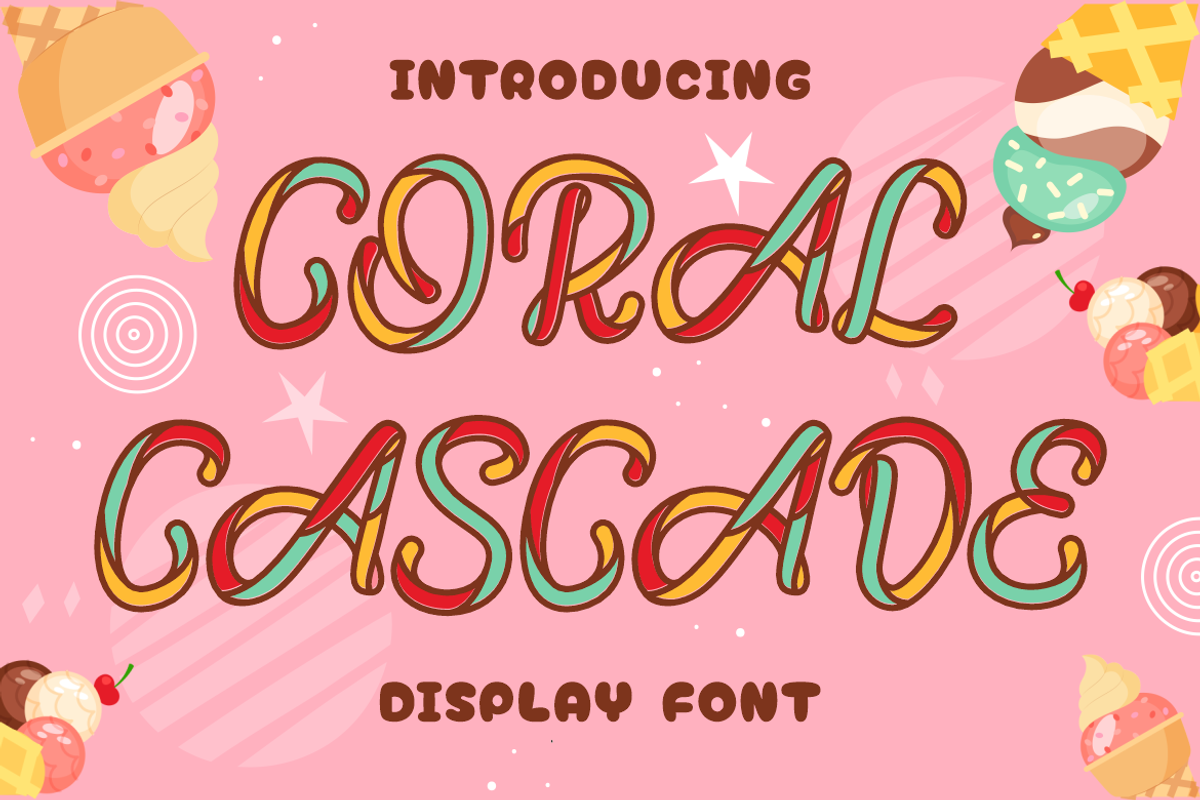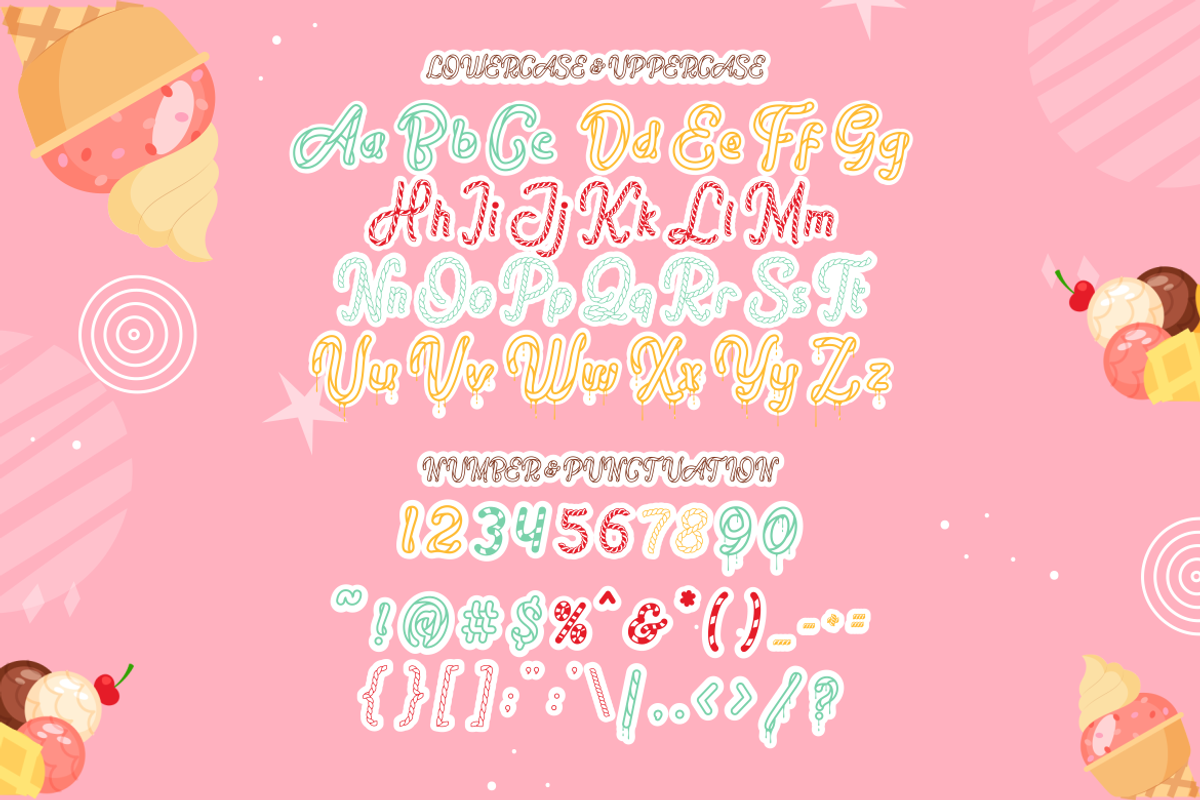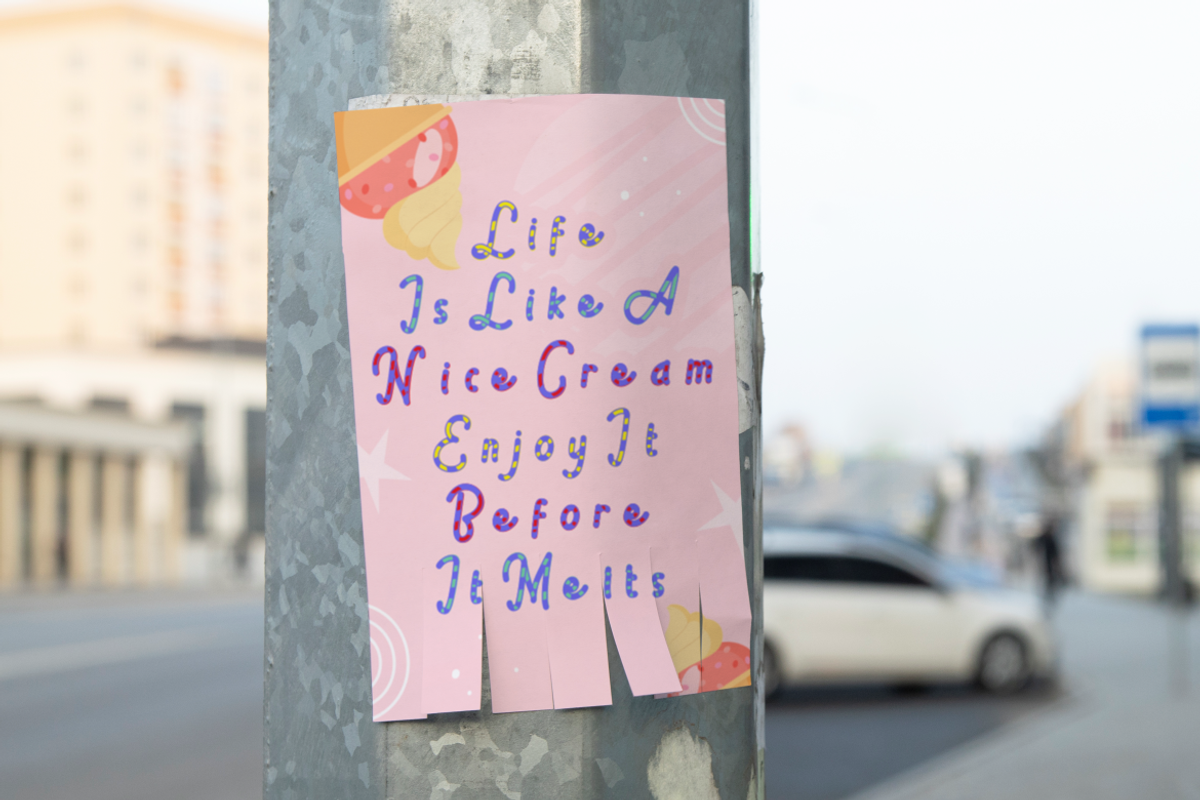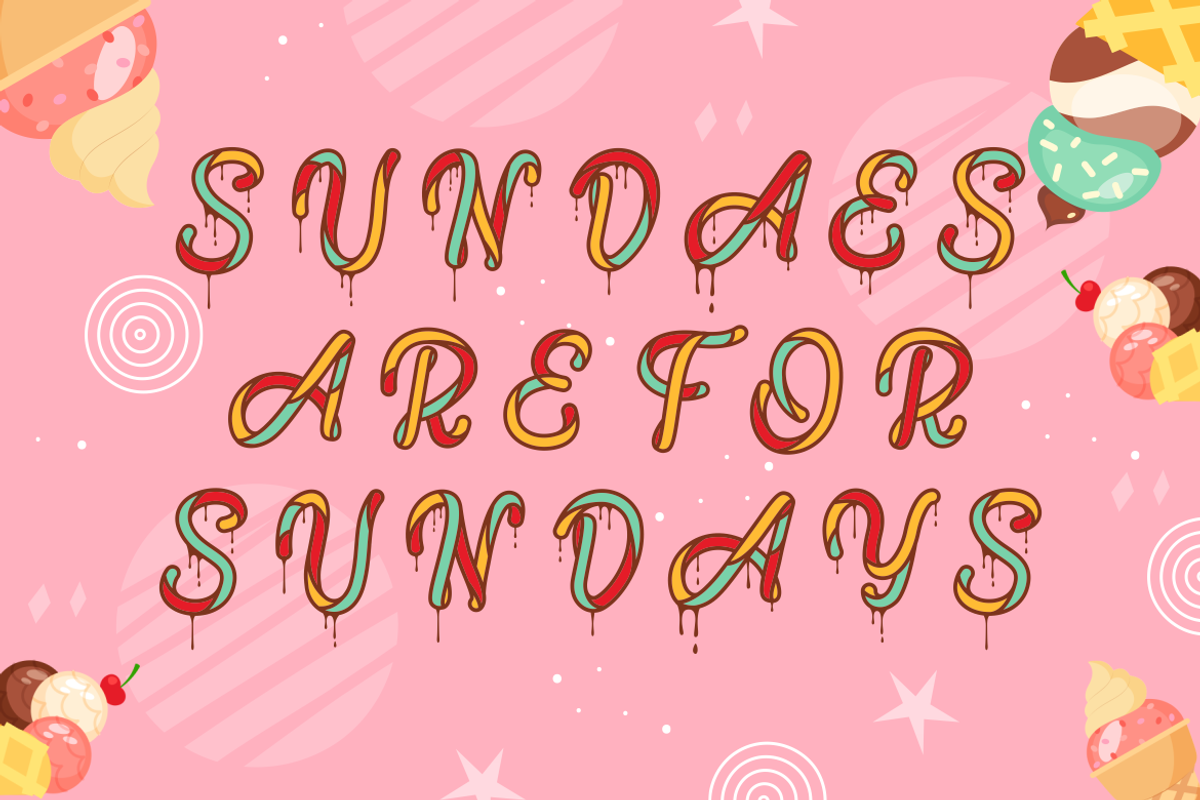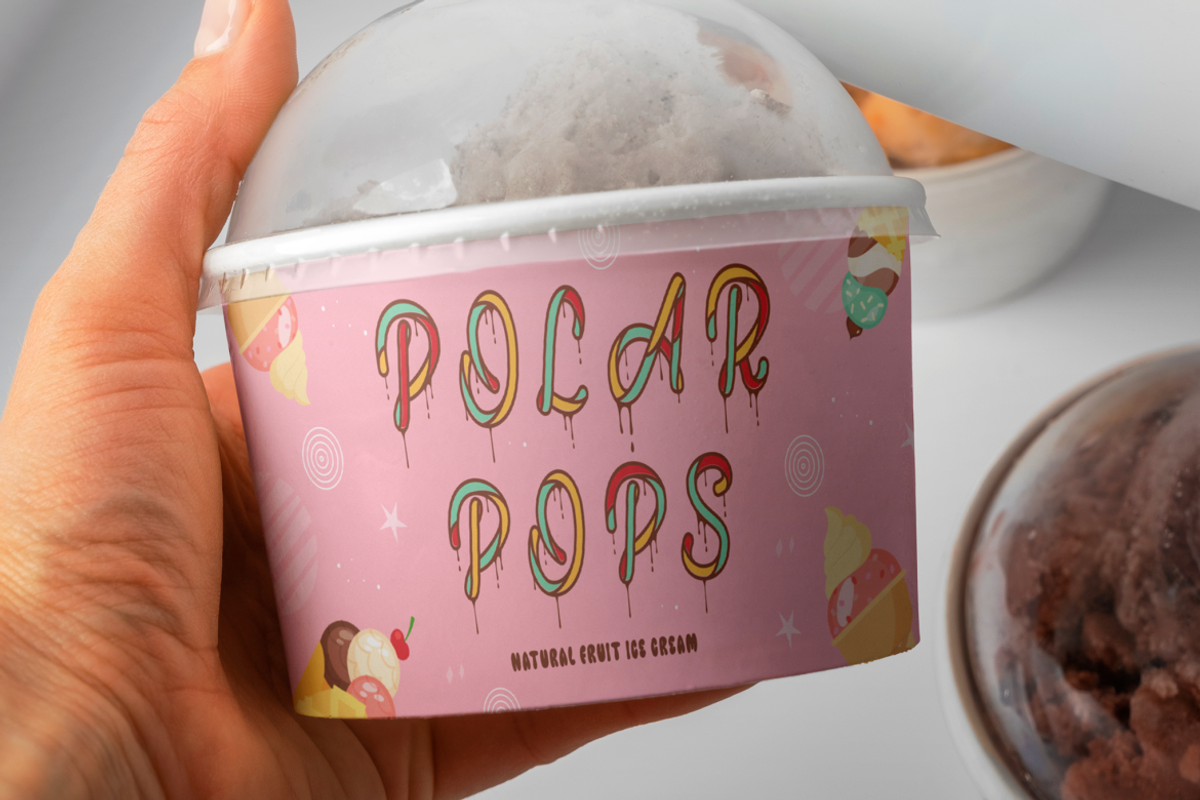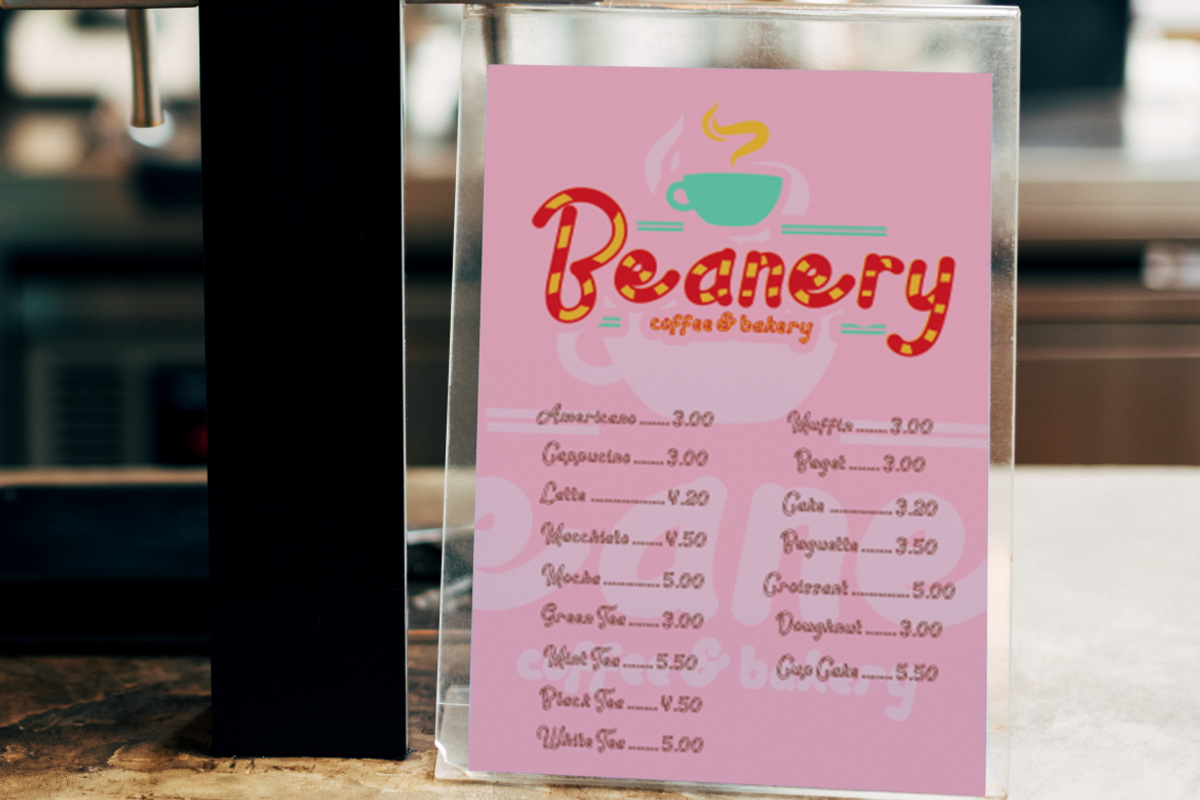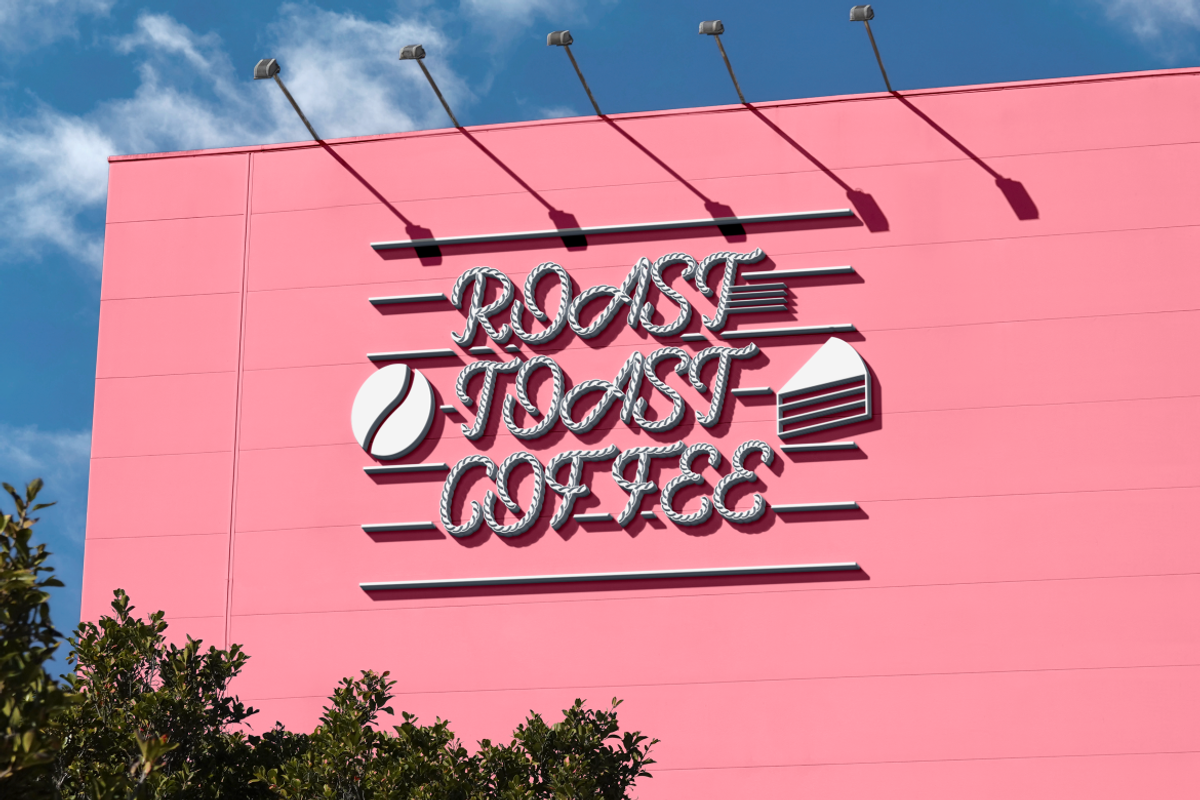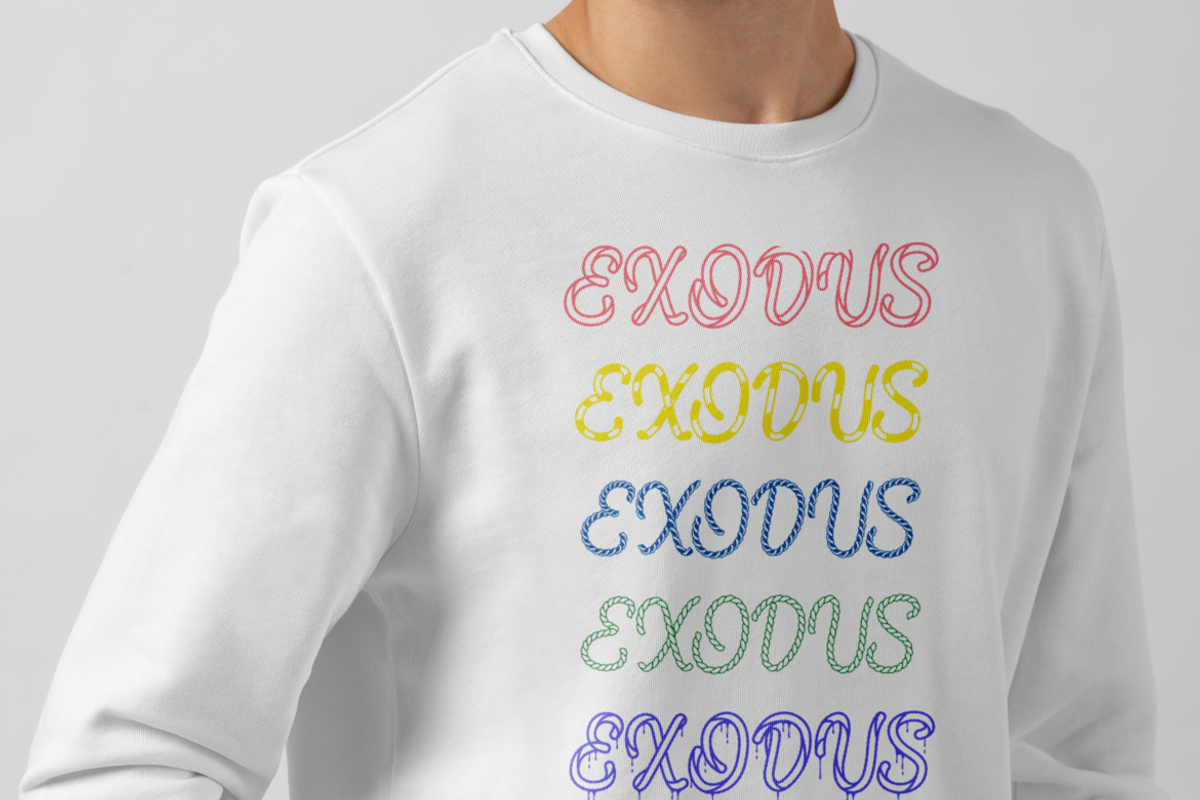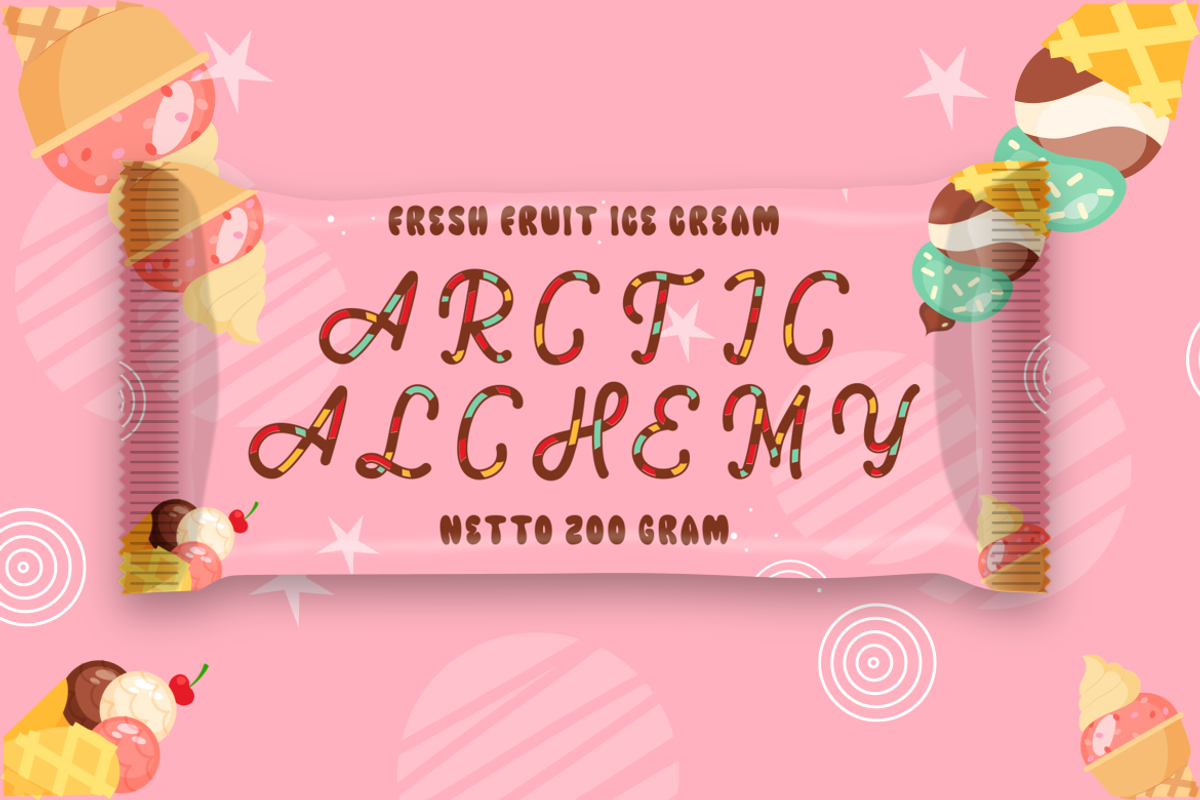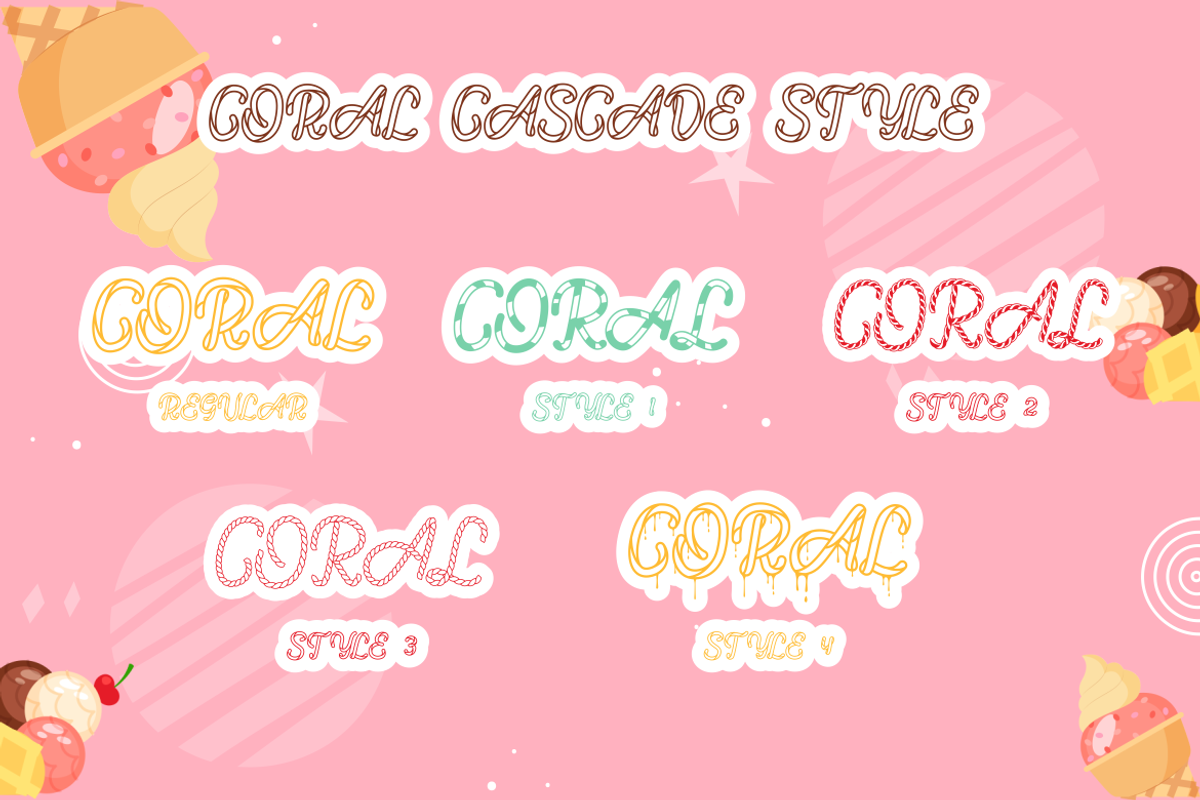
Coral Cascade - Display Font
Dive into a world where typography meets the sweetest delights with Coral Cascade - Display Font. This font is a playful parade of color and joy, designed to bring a burst of candy-inspired charm to any project. With its vibrant hues and playful shapes, Coral Cascade is a feast for the eyes, perfect for anyone looking to make a bold statement. Whether it’s the logo for a trendy startup, the branding for a crafty business, or the headline of an eye-catching poster, this font turns words into a visual treat that’s hard to resist.
Coral Cascade is more than just a font—it’s a celebration of color and creativity. Its letters are drenched in the hues of a candy shop, making it ideal for invitations, packaging, and children’s books that need a touch of whimsy. This font isn’t afraid to stand out and be playful, making it a go-to choice for designers who want their work to speak with a fun, approachable voice. So let your designs come alive with Coral Cascade, and watch as they turn heads and sweeten the visual palette of your audience.